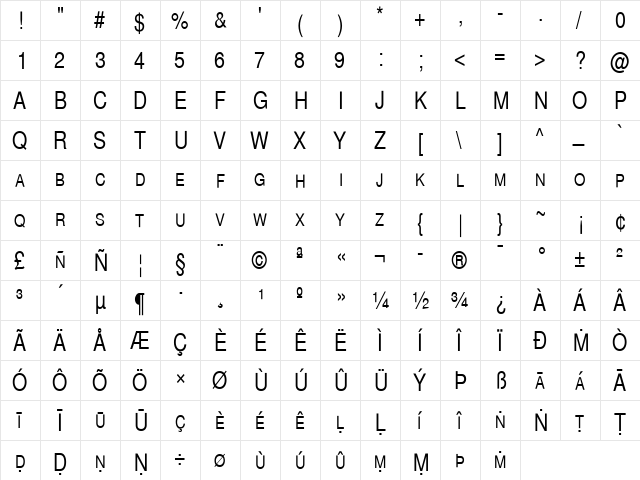
Pali Helvetica SmCps Cond Regular
Design Context for Pali Helvetica SmCps Cond Typeface
Pali Helvetica SmCps Cond offers clean, dependable letterforms without strong stylistic allegiance, making it a practical choice for designers who need flexibility. Its narrow stance lets it pack a punch even in space-constrained designs.